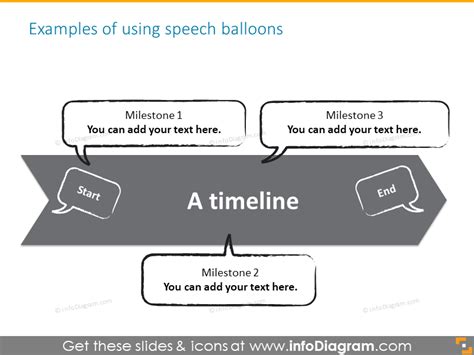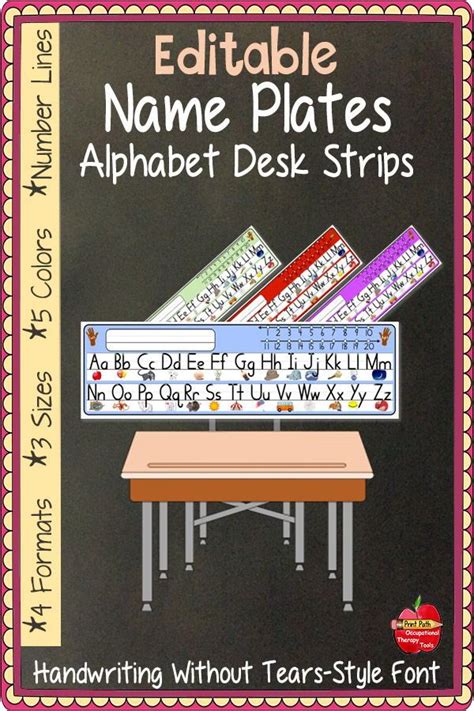
Powerpoint Fonts That Look Like Handwriting : Font list - so you can see what various fonts look like - You can customize your experience with live font previews.. It looks like the effects created by whiteboard animation software like. Within that broad category you'll find a range of styles that reflects the variations and subtle differences found in actual handwriting. However, few people have handwriting that is completely uniform, and default fonts may look a little too neat. The serifs create joins between. Archive of freely downloadable fonts.
If you think that the best fonts for powerpoint are calligraphic ones, then i have golden brush for you in the final part of the post, we would like to share with you the conclusions and simple principles for. When you do want a font that's less formal, you're kind of stuck with comic sans, and we all know how much. It began as a way for me to address a need for a project i was working on. These font tips will help you make a better powerpoint presentation. Choose customize fonts at the bottom of the menu to select your own fonts.
Fonts that look like handwriting. Looking for handwriting powerpoint fonts? Learn how to create a realistic looking effect of a hand writing text in powerpoint. When you do want a font that's less formal, you're kind of stuck with comic sans, and we all know how much. There are several, while probably hundreds, actually. Share in comments which of those fonts you like the most? They have strengths and weaknesses, just like any of us. It looks great, it's very readable also from a distance because of its thickness and has an elegant handwritten look.
And yet, the font allows you to leave an artistic.
It began as a way for me to address a need for a project i was working on. Imperfect handwriting font gives the font a zest, creates ease. There are several, while probably hundreds, actually. It works well in headlines and titles. Browse by alphabetical listing, by style, by author or by popularity. The serifs create joins between. Within that broad category you'll find a range of styles that reflects the variations and subtle differences found in actual handwriting. They have strengths and weaknesses, just like any of us. As the name suggests, handwritten fonts are fonts that look like they were written by hand, usually with a pen or marker. Every font is free to download! The best selection of handwriting fonts for windows and macintosh. Originally made in 2020 by nihstudio font designer : Powerpoint has plenty of effects to ensure that your text doesn't go unnoticed.
If you think that the best fonts for powerpoint are calligraphic ones, then i have golden brush for you in the final part of the post, we would like to share with you the conclusions and simple principles for.
It looks great, it's very readable also from a distance because of its thickness and has an elegant handwritten look. Powerpoint will try to replace all the fonts it does not recognize with something else. Every font is free to download! These font tips will help you make a better powerpoint presentation. This font would also fall under the graphic font category and would every one of the free handwriting fonts on this list is available for download at zero cost to you—so if you want to lend a unique, handwritten feel to your. You can customize your experience with live font previews. If you are willing to spend a little extra for a font, you can find one with alternates so that certain characters (like e or t) are different depending on what letters come after. There are several, while probably hundreds, actually. If all you want is a font that looks like you've written text, these may do the job for you. Browse by alphabetical listing, by style, by author or by popularity. ✓ click to find the best 83 free fonts in the handwriting powerpoint style. You can get loads of handwriting fonts. All fonts are categorized and can be saved for quick reference and comparison.
✓ click to find the best 83 free fonts in the handwriting powerpoint style. Effects like animation, drop shadows, and reflection should be reserved for a few. This is a script i've written (applescript) that addresses the problem most handwriting fonts have — they look like fonts, mostly because they're settled so regularly along the baseline and their glyphs are so uniform. If you think that the best fonts for powerpoint are calligraphic ones, then i have golden brush for you in the final part of the post, we would like to share with you the conclusions and simple principles for. As the name suggests, handwritten fonts are fonts that look like they were written by hand, usually with a pen or marker.
Share in comments which of those fonts you like the most? Fonts that look like handwriting. Do you like handwriting fonts? Royalister signature font is a signature handwriting font. The serifs create joins between. Choose customize fonts at the bottom of the menu to select your own fonts. Every font is free to download! This font we like a lot.
All fonts are categorized and can be saved for quick reference and comparison.
Imperfect handwriting font gives the font a zest, creates ease. As the name suggests, handwritten fonts are fonts that look like they were written by hand, usually with a pen or marker. Serif fonts more closely represent handwriting and, therefore, are universally acknowledged to be easier to read in print. Browse by alphabetical listing, by style, by author or by popularity. All fonts are categorized and can be saved for quick reference and comparison. Fonts that look like handwriting. Share in comments which of those fonts you like the most? Charming handwriting font stay writer is free for commercial and personal use. It began as a way for me to address a need for a project i was working on. Effects like animation, drop shadows, and reflection should be reserved for a few. The best selection of handwriting fonts for windows and macintosh. They have strengths and weaknesses, just like any of us. Fonts are much more than a pretty (type)face to look good sitting on your powerpoint slide.